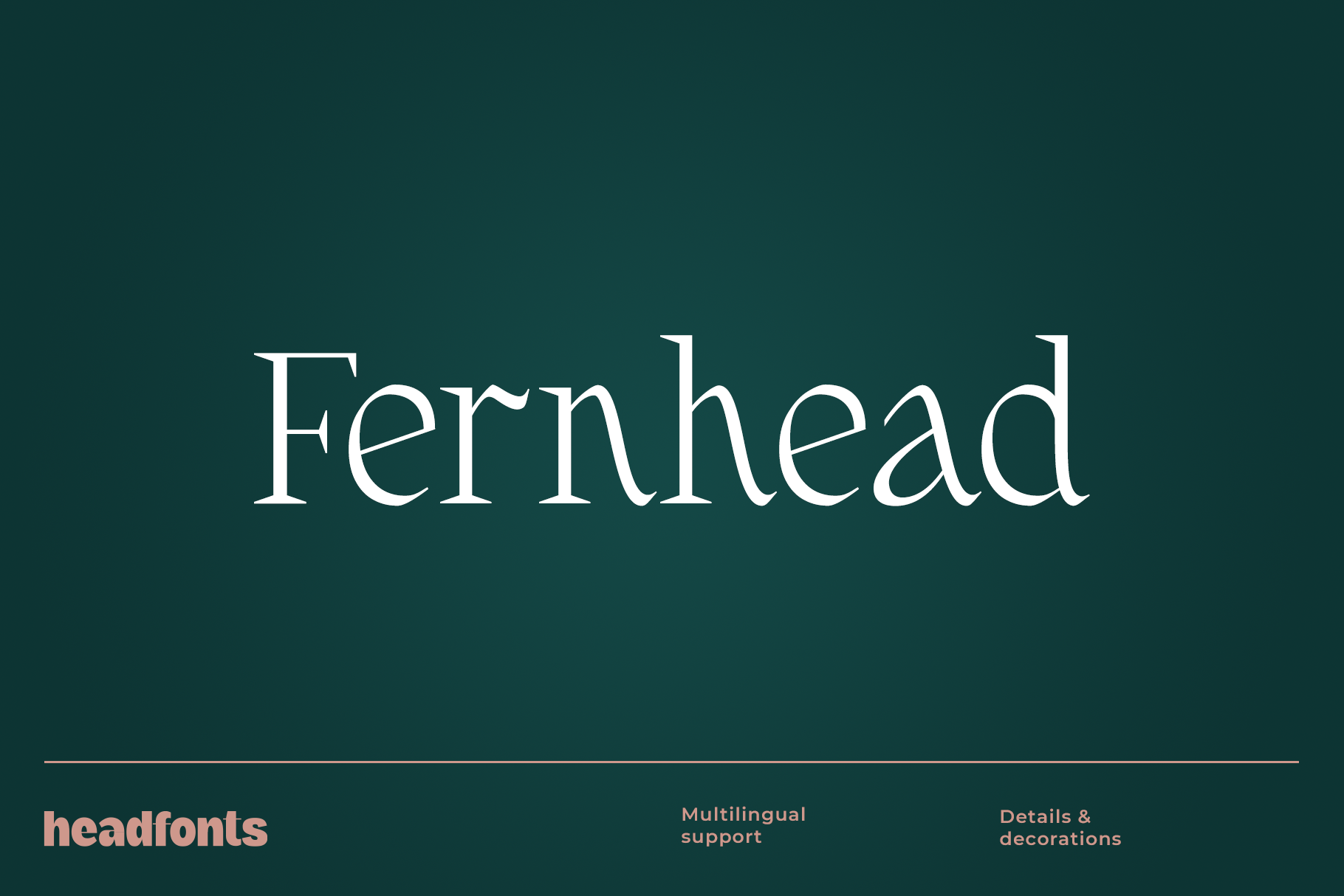
Fernhead Decorative Serif Font
We are thrilled to present, FERNHEAD, the newest font in our library. Fernhead is an elegant serif font that stands out due to its decorative elements and organic curves. With a high x-height, nonconformist design, and decorative serifs, Fernhead follows the hand's movements when writing with the pen. Fernhead has one weight, uppercase, and lowercase characters, and extensive latin script support with numerals and symbols. This typeface suits well any design that needs an organic, simple yet elegant touch such as branding materials for skin care products, flower shops, wedding stationery, and much more. This typeface is guaranteed to add sparkle and grace to any of your designs.